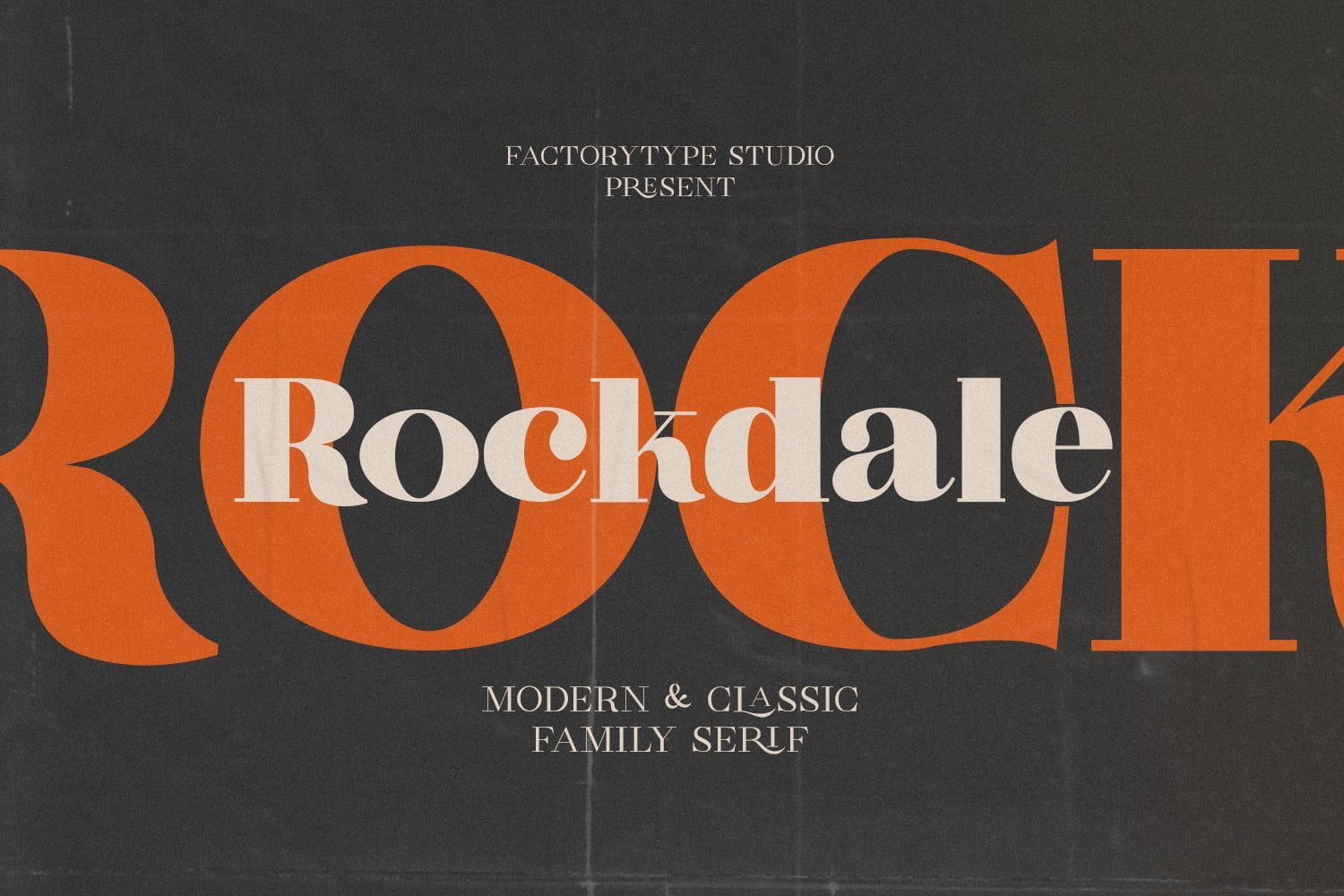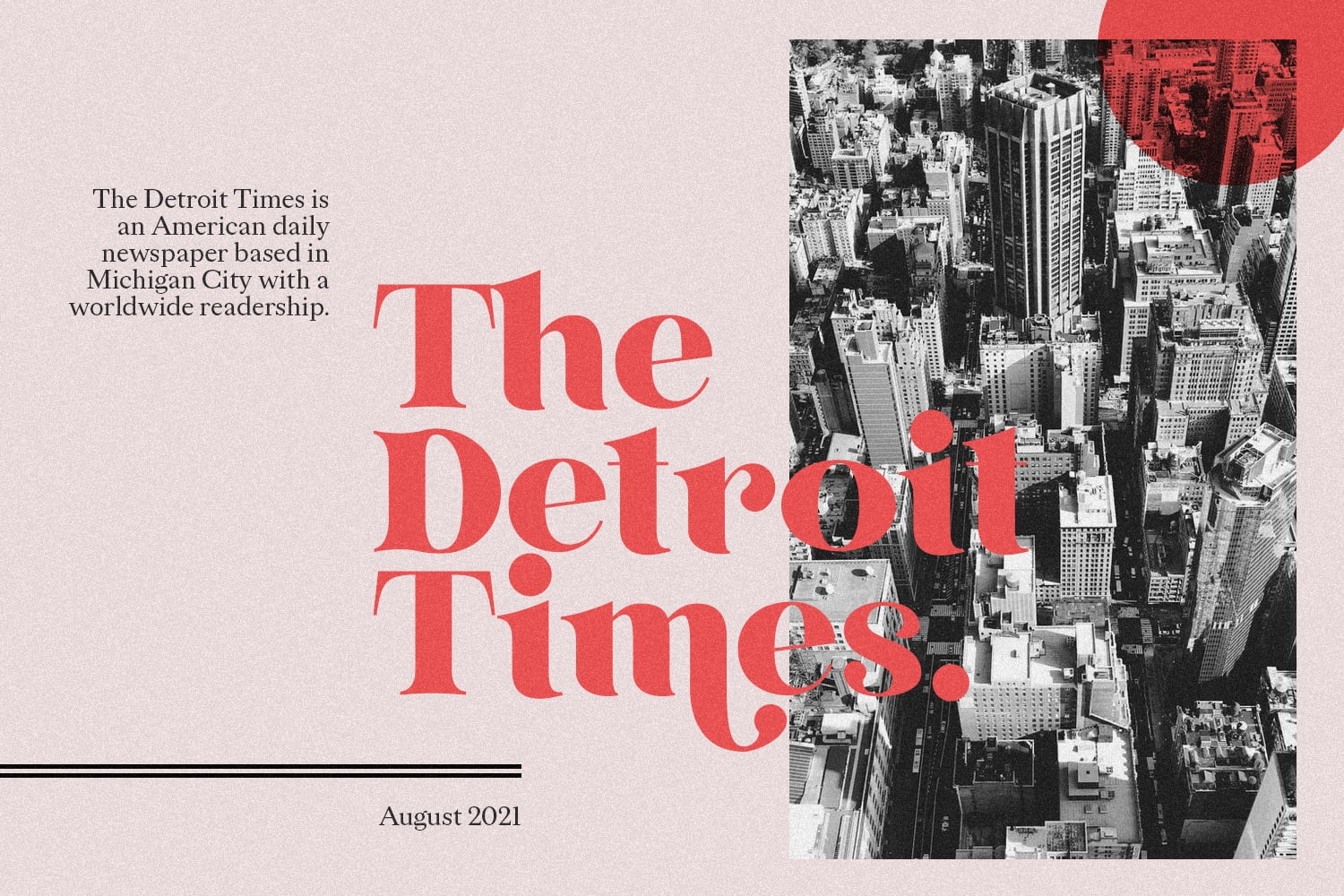
A serif font is a typeface that has small lines, or “serifs,” at the end of its strokes. These small lines can be seen on the tails of letters, such as “a” and “y,” or at the top and bottom of letters, such as “T” and “H.” Serif fonts are commonly used in printed materials, such as books, newspapers, and magazines, due to their readability and classic look.
While serif fonts have small lines at the end of their strokes, sans serif fonts do not. Sans serif fonts are often used in digital media and advertising due to their modern and clean look. While serif fonts are often associated with tradition and professionalism, sans serif fonts are associated with innovation and simplicity.
Serif fonts are commonly used in printed materials, such as books, newspapers, and academic journals, due to their readability and classic look. They are also commonly used in logos and branding for businesses that want to convey a sense of tradition and professionalism. However, serif fonts may not be the best choice for digital media, such as websites and social media, as they can be harder to read on screens.
In conclusion, serif fonts are a classic and professional choice for printed materials and branding. However, they may not be the best choice for digital media. When choosing a font, it is important to consider your audience and the medium in which it will be presented.